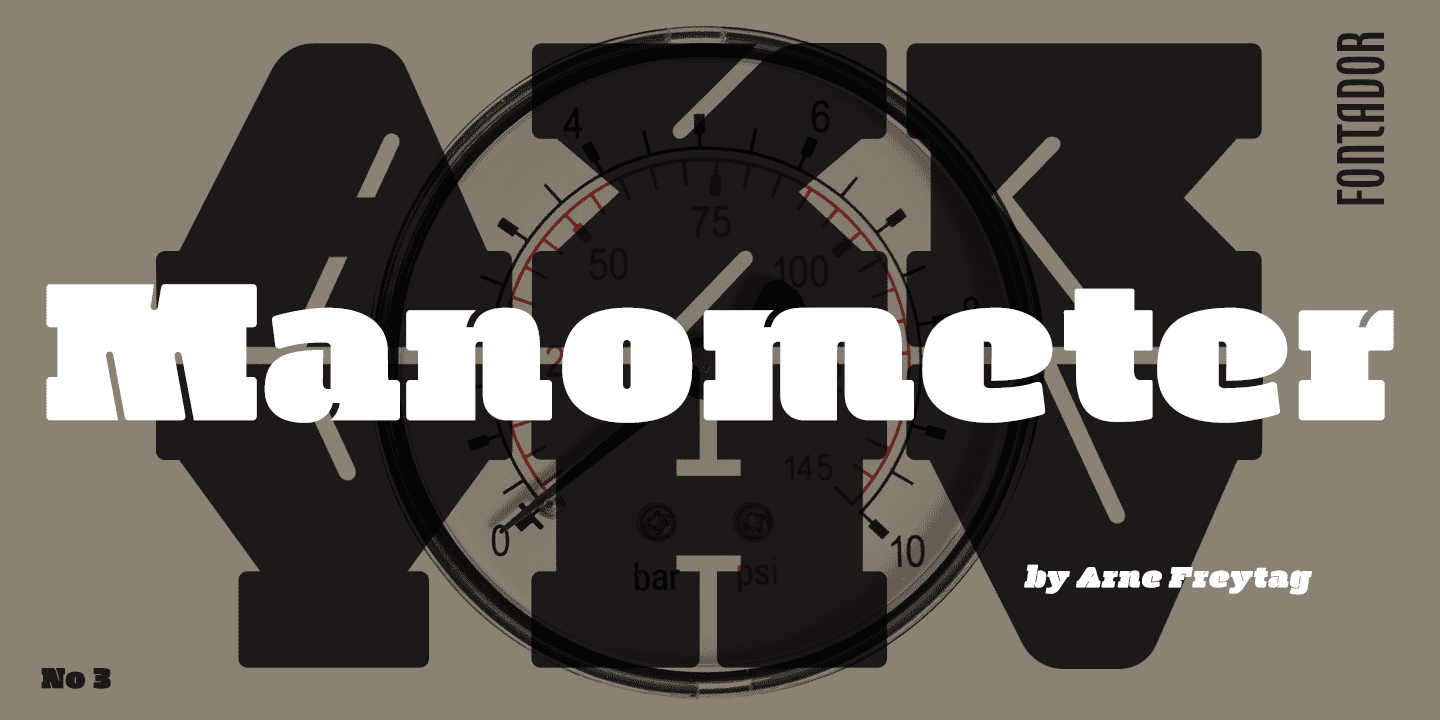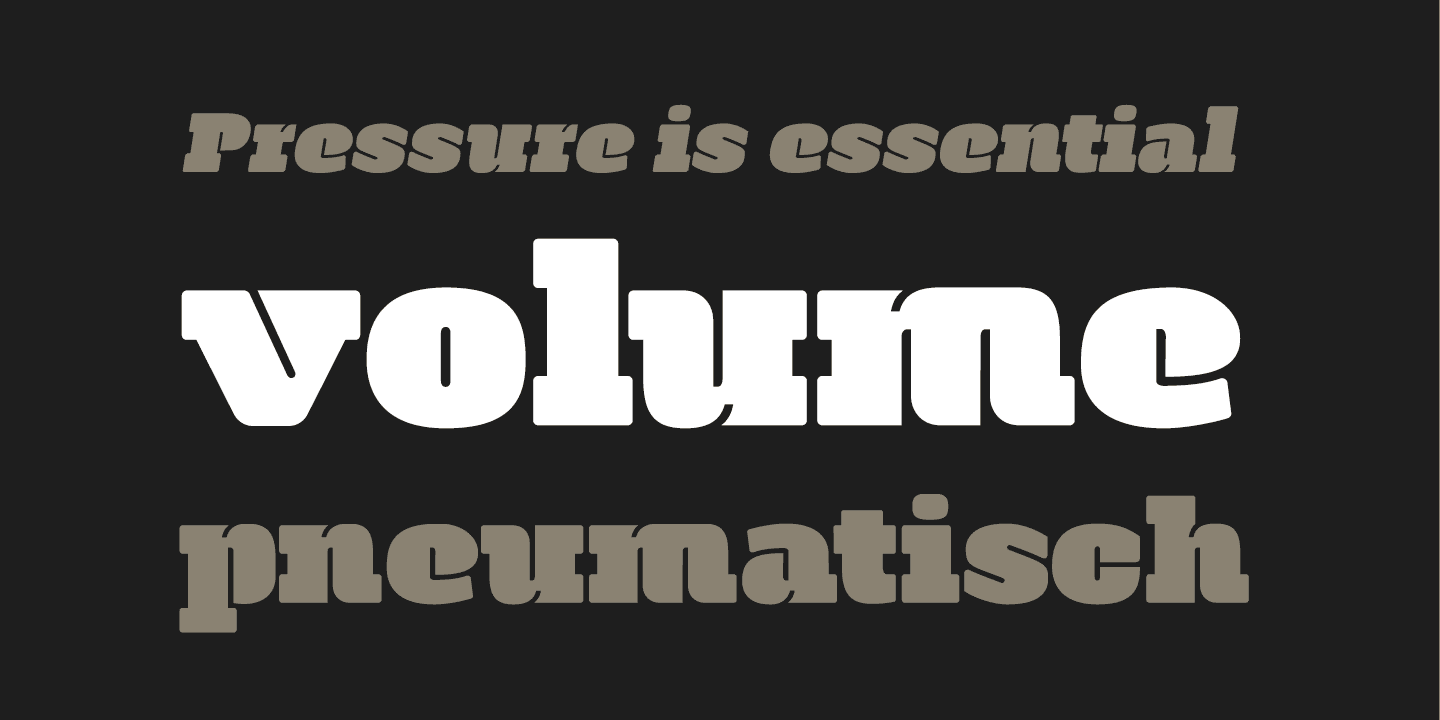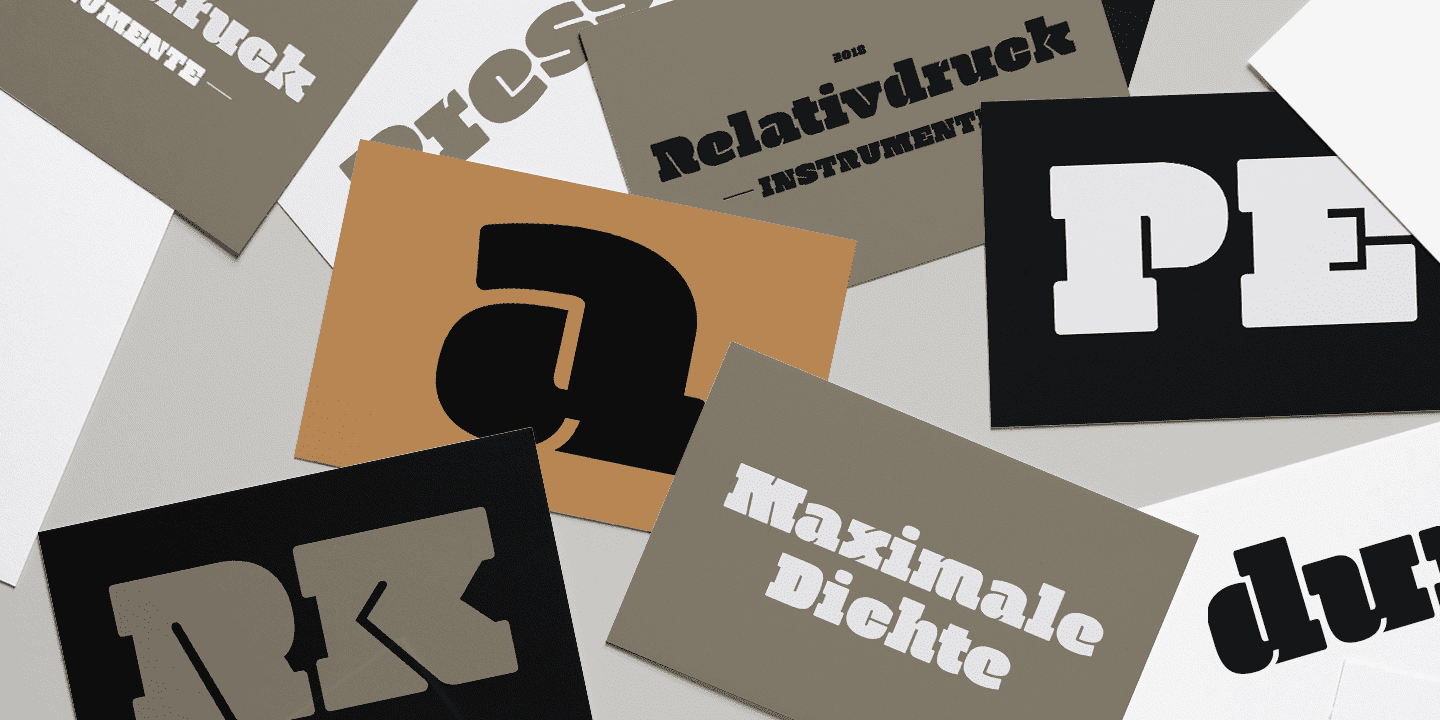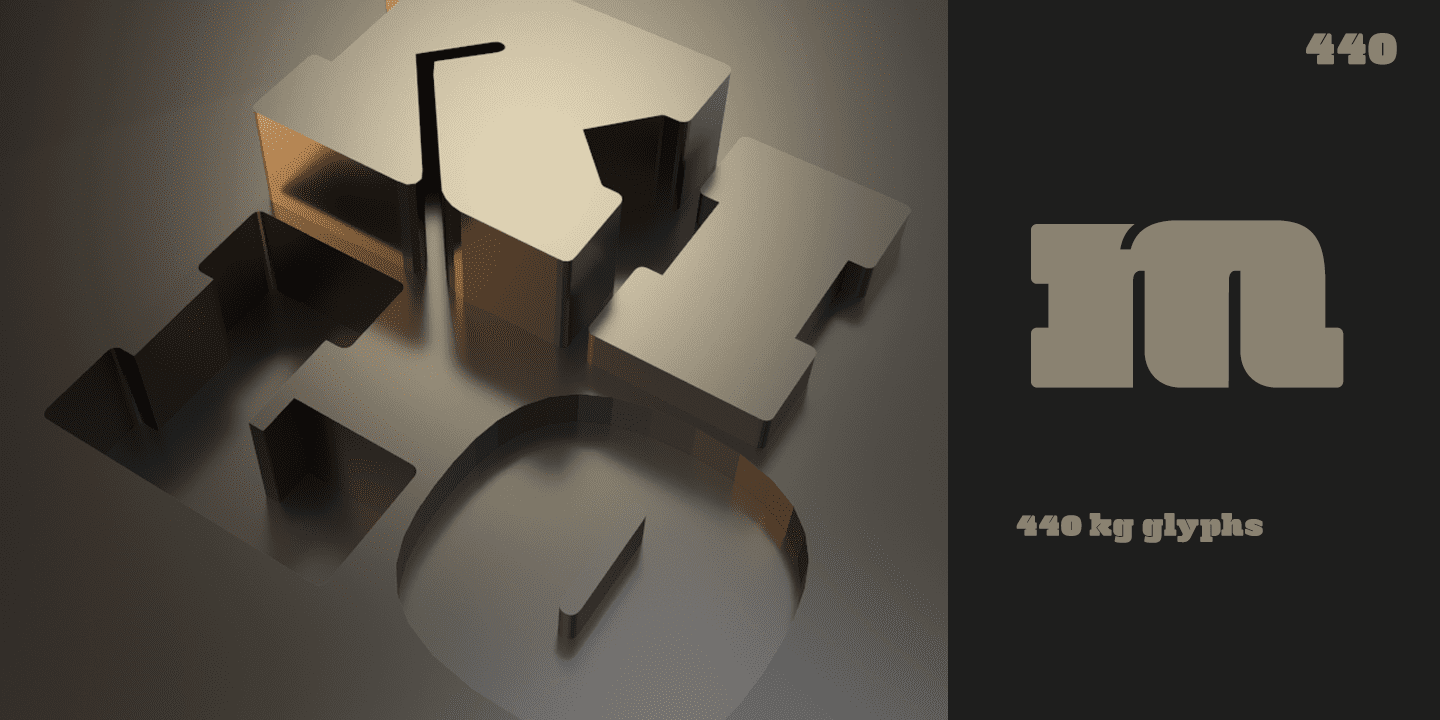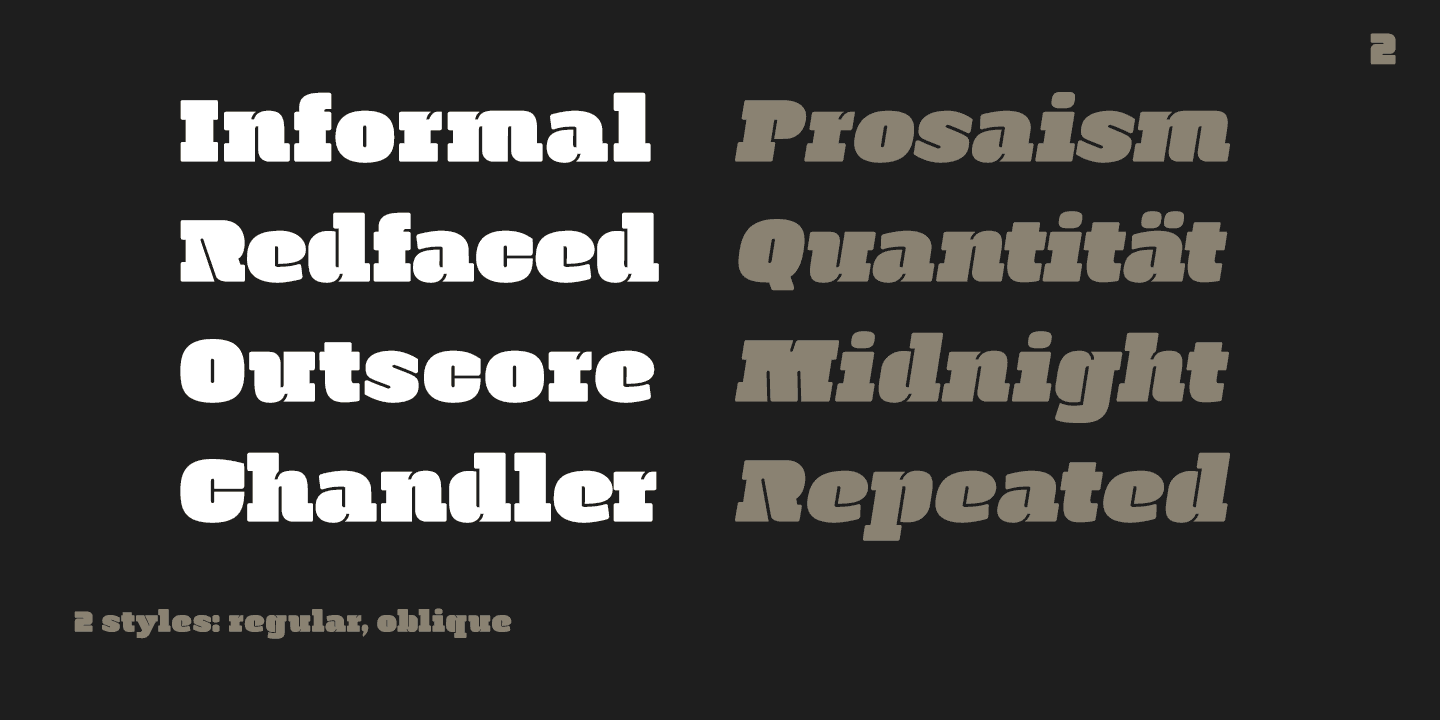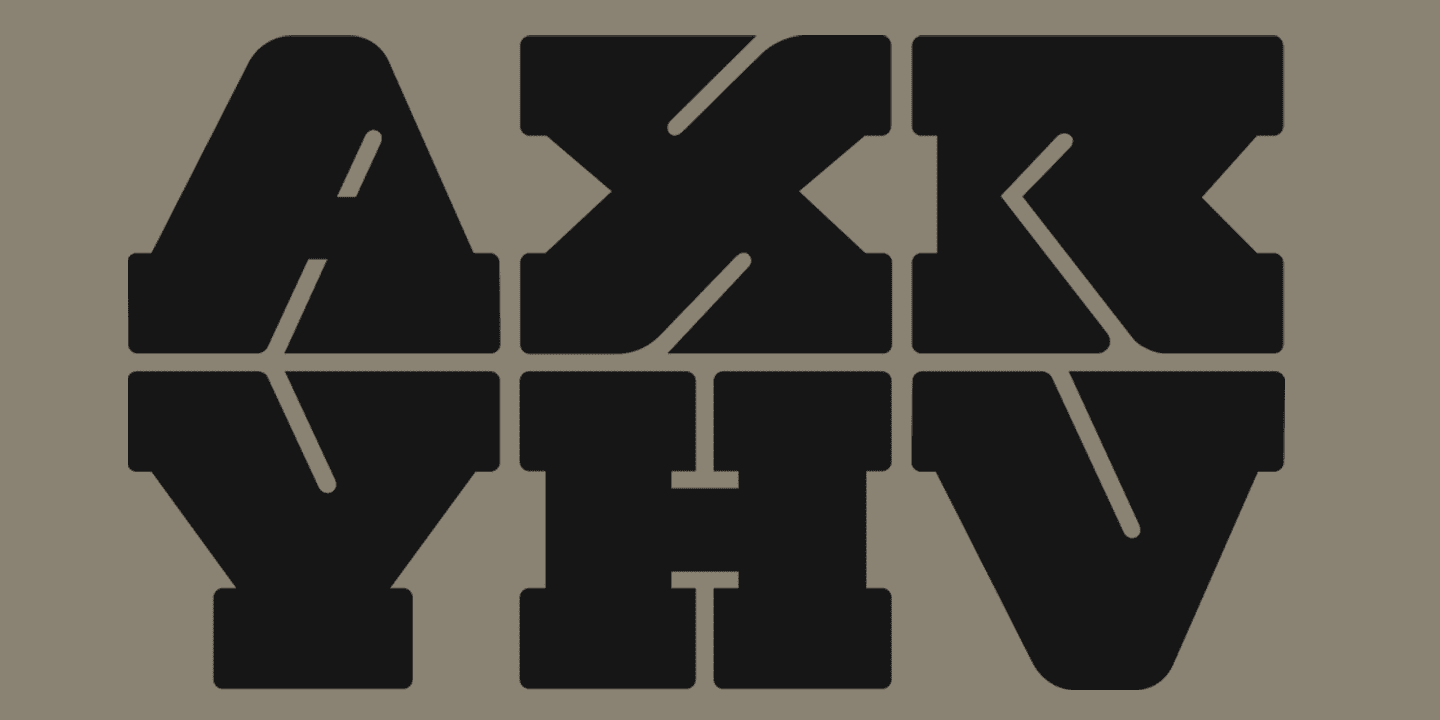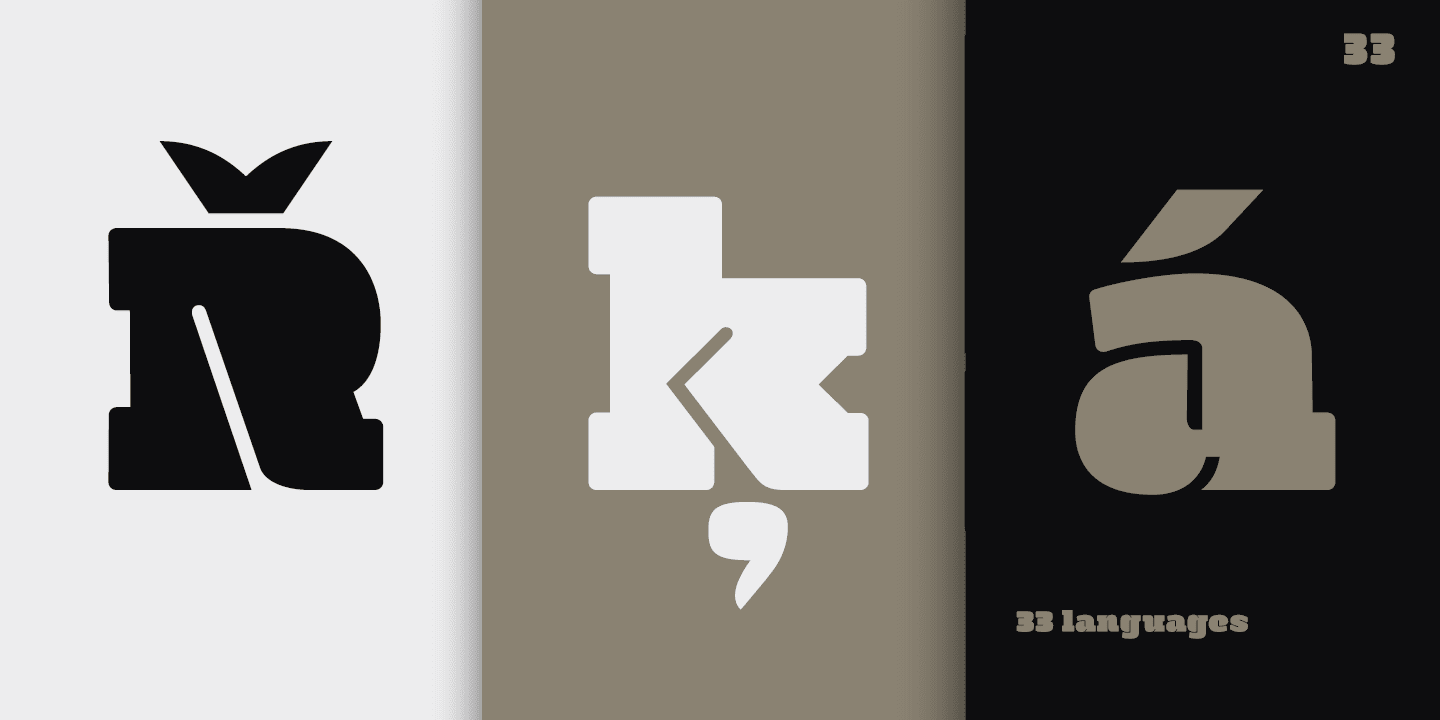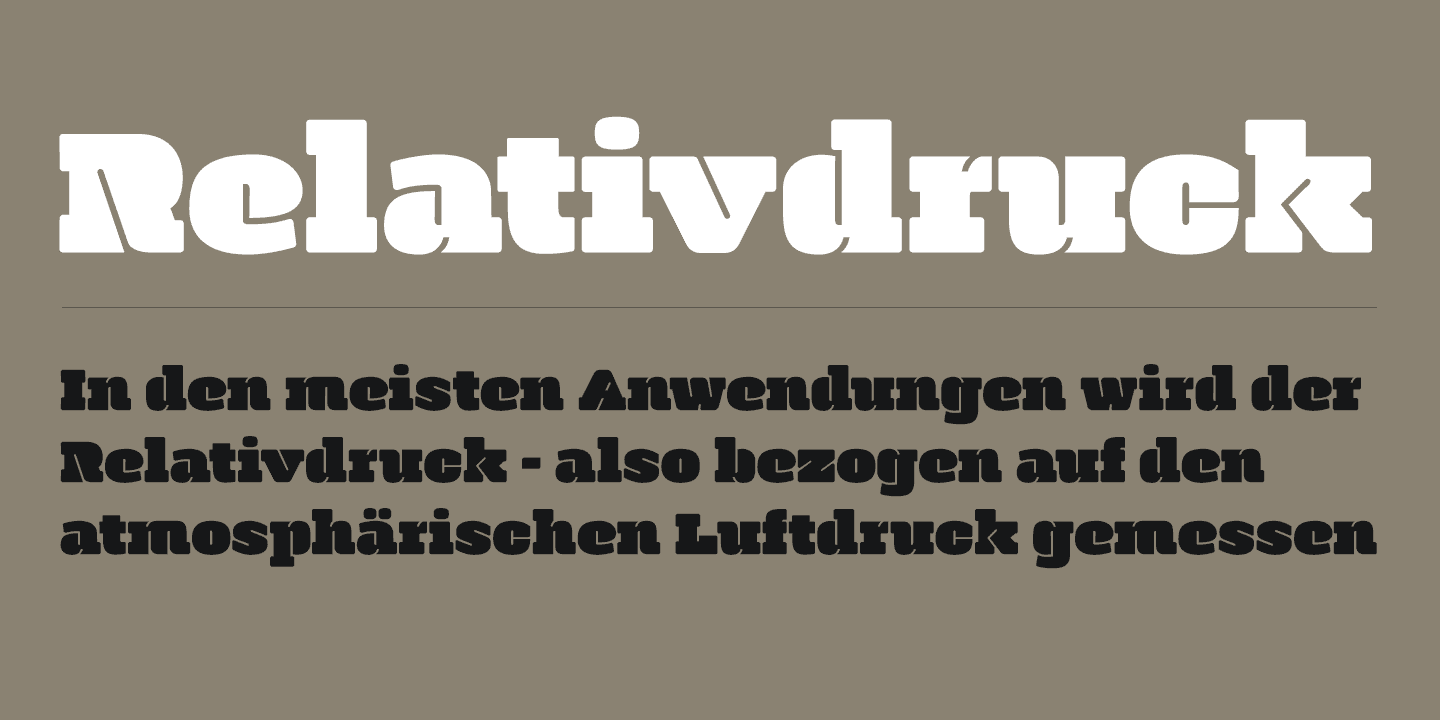
Manometer is a pneumatic ultra-black slab serif typeface with soft corners and fine counters.
About Fontador
Fontador is a type studio founded by German type designer Arne Freytag. Freytag was born in Hamburg in 1967. In 1995, he won a scholarship to study Graphic Design at the Kunstschule Alsterdamm art school in Hamburg. As a postgraduate in 1998, he attended the Atelier National de Recherche Typographique in Paris. He has published various articles in Tipografica, étapes and the Typografische Monatsblätter. He has been working as a freelance typographic and graphic designer since 2000.